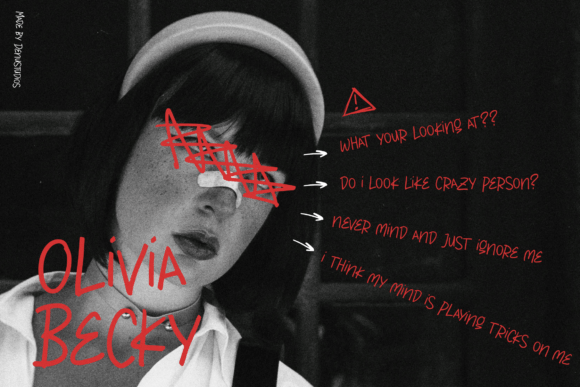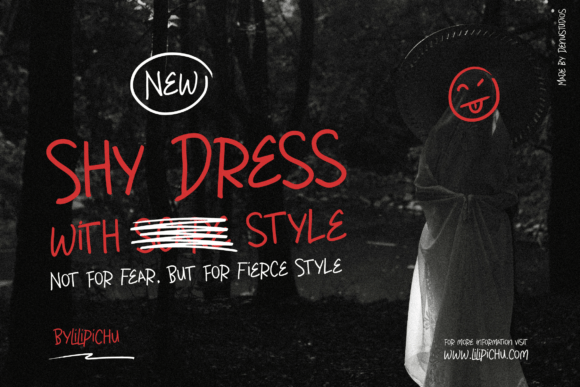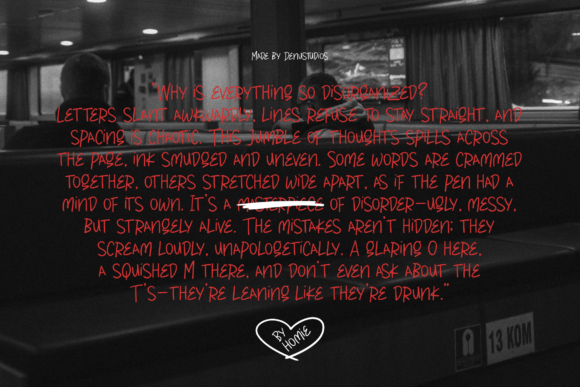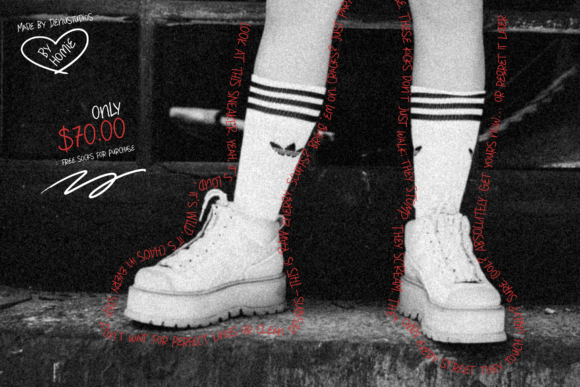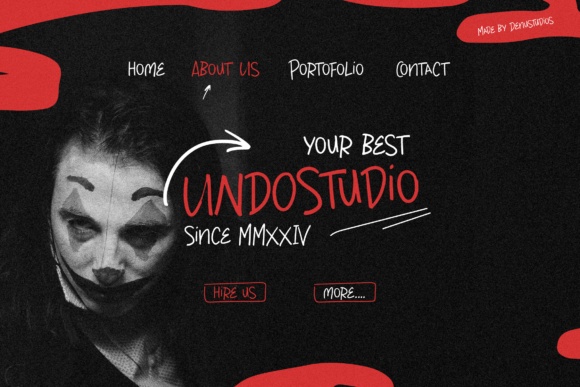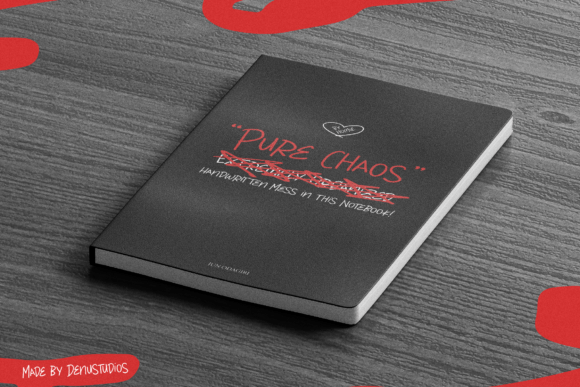
The Designer’s Delight: Getting to Know Byhomie Font
I’ll never forget the time I was working on a branding project for a trendy homeware store. My client wanted a font that was both modern and personal, but I was struggling to find the perfect fit. That’s when I stumbled upon Byhomie Font, a cool and trendy handwritten font that instantly caught my eye. In this article, I’ll share my experience with Byhomie Font, its features, and how to make the most of it in your designs.
An Honest Review of Byhomie Font
What I Love About Byhomie Font
- ✨ Unique and trendy handwritten style that’s perfect for creative projects
- ✅ Highly versatile and suitable for a wide range of applications, from logos to social media graphics
- 💡 Excellent for projects that require a personal touch, such as invitations, greeting cards, and quotes
- 🎨 Beautifully crafted to add a touch of elegance and sophistication to your designs
While Byhomie Font is an excellent choice for many projects, there are a few things to keep in mind:
- 🤔 Some users may find the font a bit too ornate for very simple or minimalist designs
- ⚠️ As with any font, it’s essential to test it in different contexts to ensure it works well with your specific project
The Backstory of Byhomie Font
Byhomie Font was designed with the intention of creating a unique and trendy handwritten font that could be used in a variety of creative projects. The designer aimed to craft a font that was both modern and personal, making it perfect for designers, crafters, and creative hobbyists.
Q: What type of projects is Byhomie Font best suited for?
A: Byhomie Font is suitable for a wide range of projects, including logos, branding projects, homeware designs, product packaging, and more.
Q: Is Byhomie Font available in different styles or weights?
Q: Can I use Byhomie Font in combination with other fonts?
A: Absolutely! Byhomie Font can be paired with other fonts to create a unique and visually appealing design.